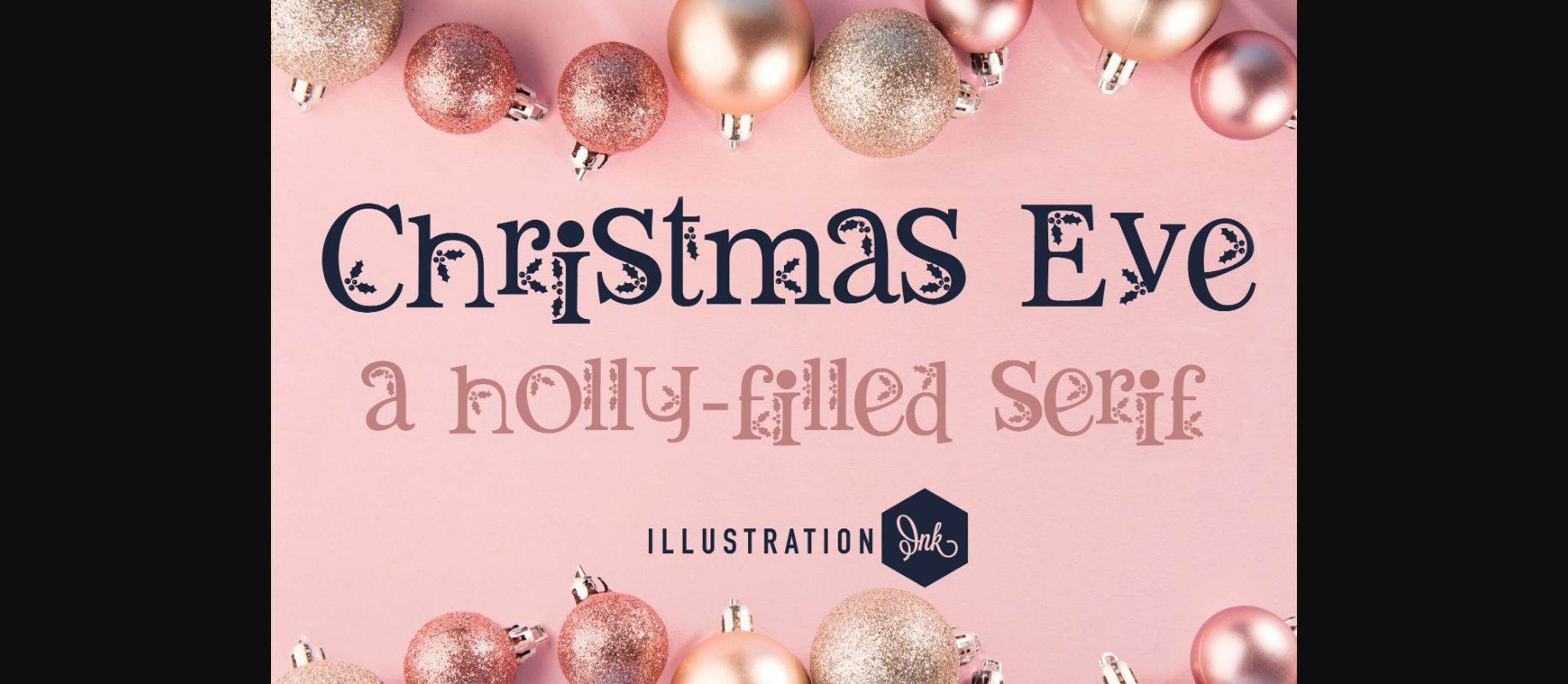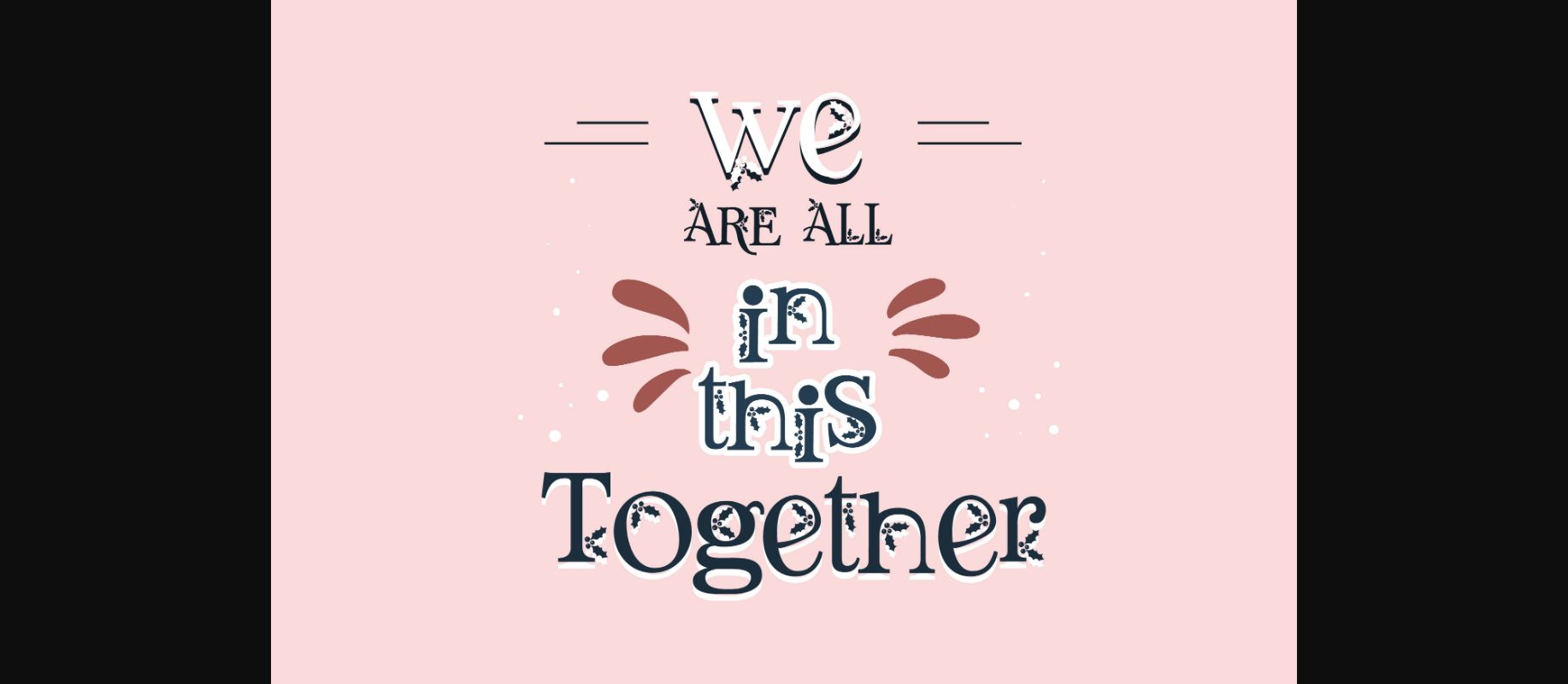
About Christmas Eve Font
Christmas Eve is a cute and adorable decorative font. Whimsical and a bit quirky, this font will brighten up each of your designs. Add it confidently to your projects, and you will love the results.